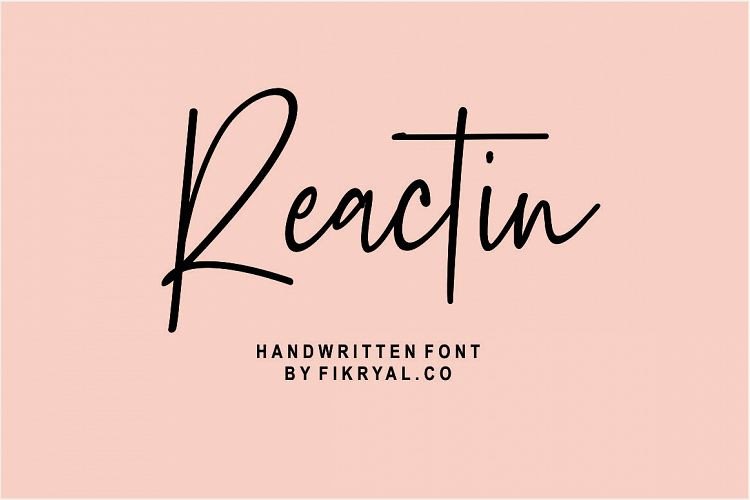
Reactin Signature Font
Hello, friends. “Reactin Font” is script type with handwitten Style, they have a fashionable, fun and chilled character. The font is super versatile and suitable for any project. Reactin designed and shared by Teuku Risky Firmina. It is a new modern & stylish handwritten font. I’ts Perfect for logo,branding, invitation, tittle, wedding designs, social media posts, advertisements, product packaging, product designs, label, photography, watermark, special event,magazine,web design,etc.